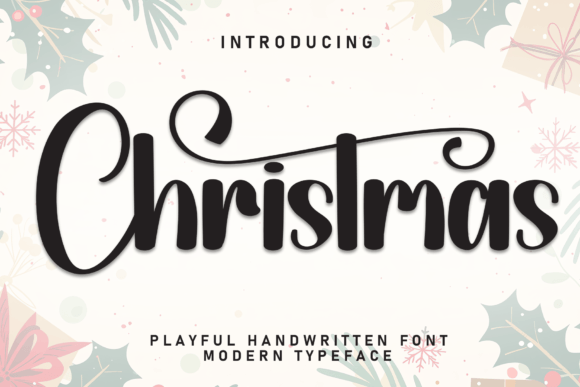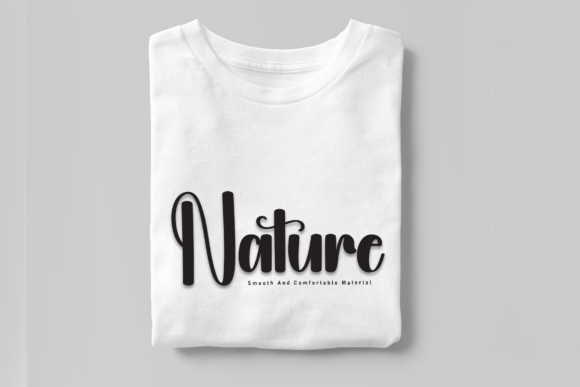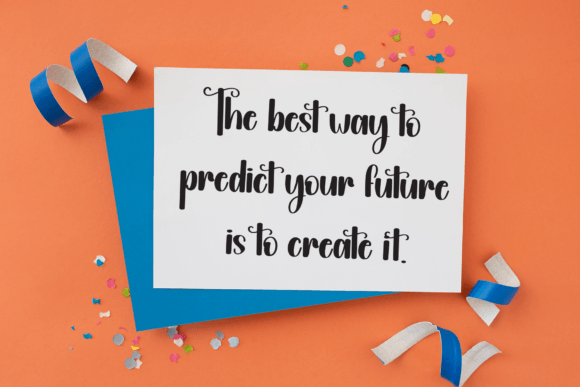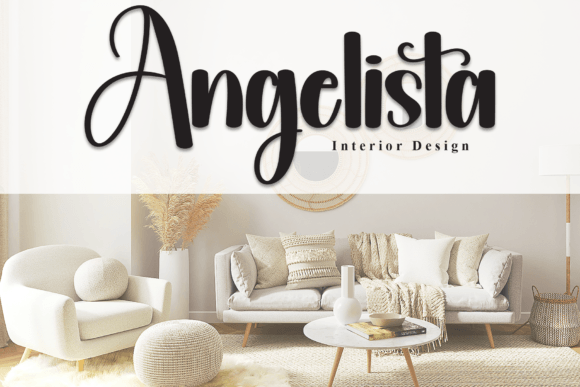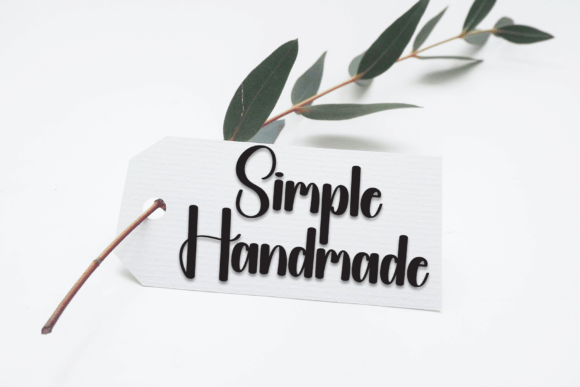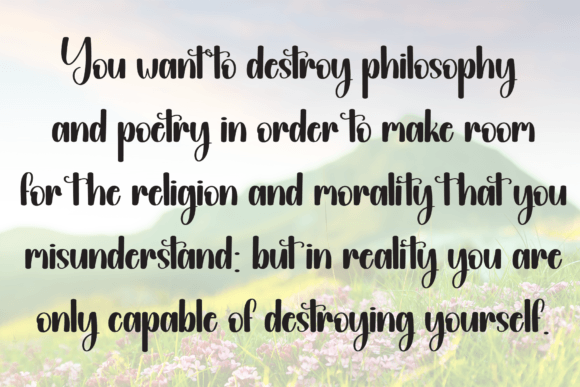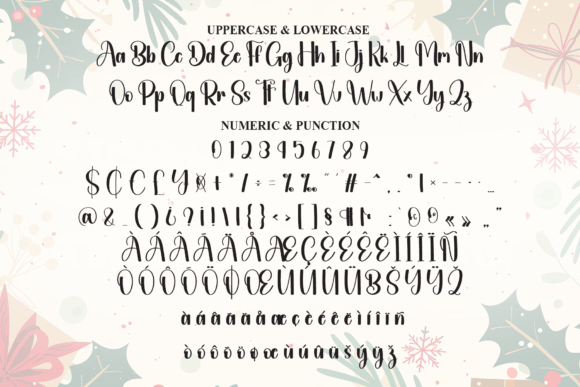
The Perfect Script for a Holiday Design: Unwrapping the Magic of Christmas Font
As you sit down to create this year’s holiday cards or social media posts, you can’t help but feel the pressure to make them stand out. The perfect combination of festive and elegant can be elusive, but what if you had a font that captured the essence of the season in a single, effortless stroke?
Enter Christmas Font, a charming and casual handwritten font designed to evoke a sense of warmth and authenticity in your designs. Ideal for personal projects, social media, and invitations, this font brings a relaxed and friendly vibe to any design. Whether you’re a seasoned designer or a creative enthusiast, Christmas Font is a valuable addition to your toolkit, offering a unique and effortless way to add a personal touch to your holiday designs.
Key Features of Christmas Font
- Font Family: Christmas Font is a festive font family that includes 4 different styles: Regular, Italic, Bold, and Bold Italic.
- Unique Characteristics: The Christmas Font features a distinctive, hand-drawn design with intricate details and ornaments, making it perfect for adding a touch of festive magic to your designs.
Designer Review: Christmas Font
Overall, I found the Christmas Font to be a delightful and festive addition to any holiday project. Here are a few things that really stood out to me: ✨
- Wide range of characters: The font includes a wide range of characters, including punctuation, numbers, and symbols, which makes it a great choice for projects that require a lot of text.
- Festive feel: The font has a really festive feel to it, with bold lines and playful flourishes that evoke the spirit of the holiday season.
- High-quality vectors: The font is available in high-quality vector format, which makes it easy to resize and manipulate without losing any detail.
Of course, no font is perfect, and there are a few limitations to keep in mind: ⚠️
- Limited language support: The font only includes characters for the Latin alphabet, which may limit its use for projects that require text in other languages.
- No italics or bold: The font does not include italic or bold versions, which may make it harder to use for projects that require emphasis.
Overall, I think the Christmas Font is a great choice for holiday projects, but it may not be the best choice for projects that require a lot of customization or language support. With a little bit of creativity and planning, however, it can be a great addition to any design project.
Use the Christmas font to create festive and holiday-themed designs, such as greeting cards, posters, and social media graphics. Experiment with different font sizes and styles to create a unique and eye-catching design. You can also combine the Christmas font with other festive elements, such as snowflakes, holly, and candy canes.
The Christmas font is perfect for creating holiday-themed designs, such as:
- Greeting cards and invitations
- Posters and flyers
- Social media graphics
- Present and gift tags